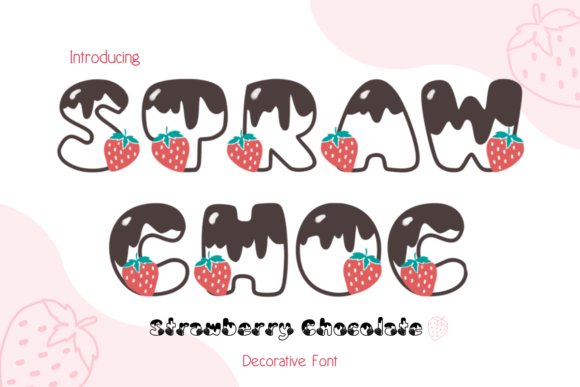
Indulge in the delectable charm of Strawberry Chocolate Font, a captivating decorative font that will tantalize your senses. Its unique fusion of luscious strawberries and rich, melted chocolate exudes a playful and whimsical aura.
With its adorable and quirky style, Strawberry Chocolate Font is the perfect choice for expressing your creativity and adding a touch of sweetness to your designs. Its versatility shines in a range of applications, from charming banners to heartwarming greeting cards.
Imagine transforming your social media posts into a visual delight, adorned with the whimsical strokes of Strawberry Chocolate Font. Its adorable strawberries and decadent chocolate motifs will entice your followers, leaving them craving for more.
Personalize your mugs and stationery with this delightful font, creating cherished mementos that evoke a sense of joy and playfulness. Let Strawberry Chocolate Font adorn your shirts, adding a touch of sweetness to your everyday wardrobe.
This enchanting font is the perfect companion for crafting heartfelt messages and sharing your sweetest sentiments. Whether you're a seasoned designer or just starting your creative journey, Strawberry Chocolate Font will add a sprinkle of magic to all your endeavors.
Embrace the blissful charm of Strawberry Chocolate Font today and let your imagination soar to delightful new heights. It's the perfect font for adding a dash of sweetness and a whole lot of fun to any project.